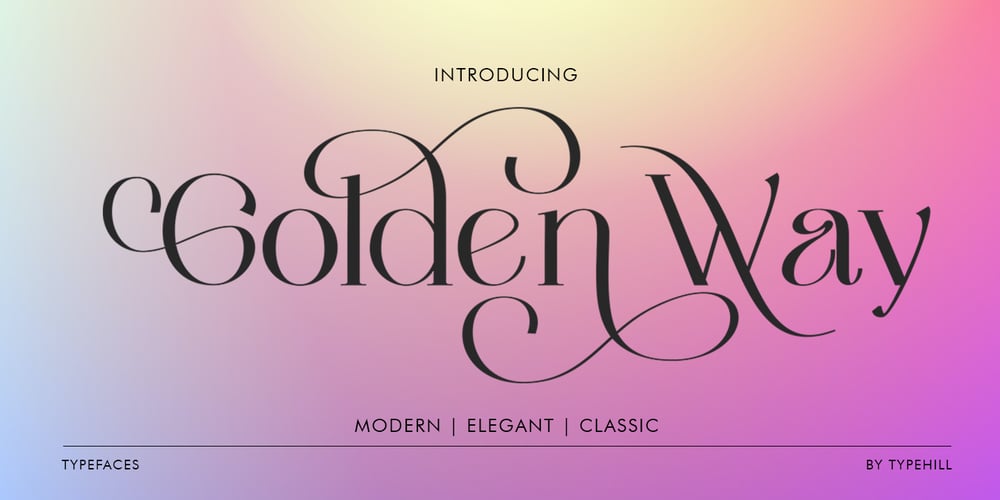
Golden Way Font Family was designed by Teuku Fahruddin and published by Typehill Studio. Golden Way contains 4 styles and family package options. Golden Way Family attracts such a subtle, clean, feminine, sensual, glamorous, simple and very readable typeface. The classic style is perfect to apply in various formal forms such as invitations, labels, menus, Logos, fashion, make up, stationery, letterpress, romantic novels, magazines, books, greeting / wedding cards, packaging, labelsGolden Way Family also features a strong neoclassical serif typeface with high contrast, cool, stylish and unique look with alternative fonts, Ligatures, and multilingual supportThank you for your visit.